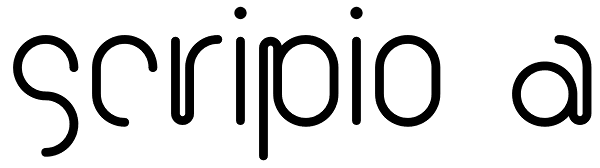
Scripio A
Scripio A was the first font which I submitted to MyFonts.com. It is a decorative font. Little bit technical. I wanted to make a font which would be interesting to all. To some extent it has justified my hopes.